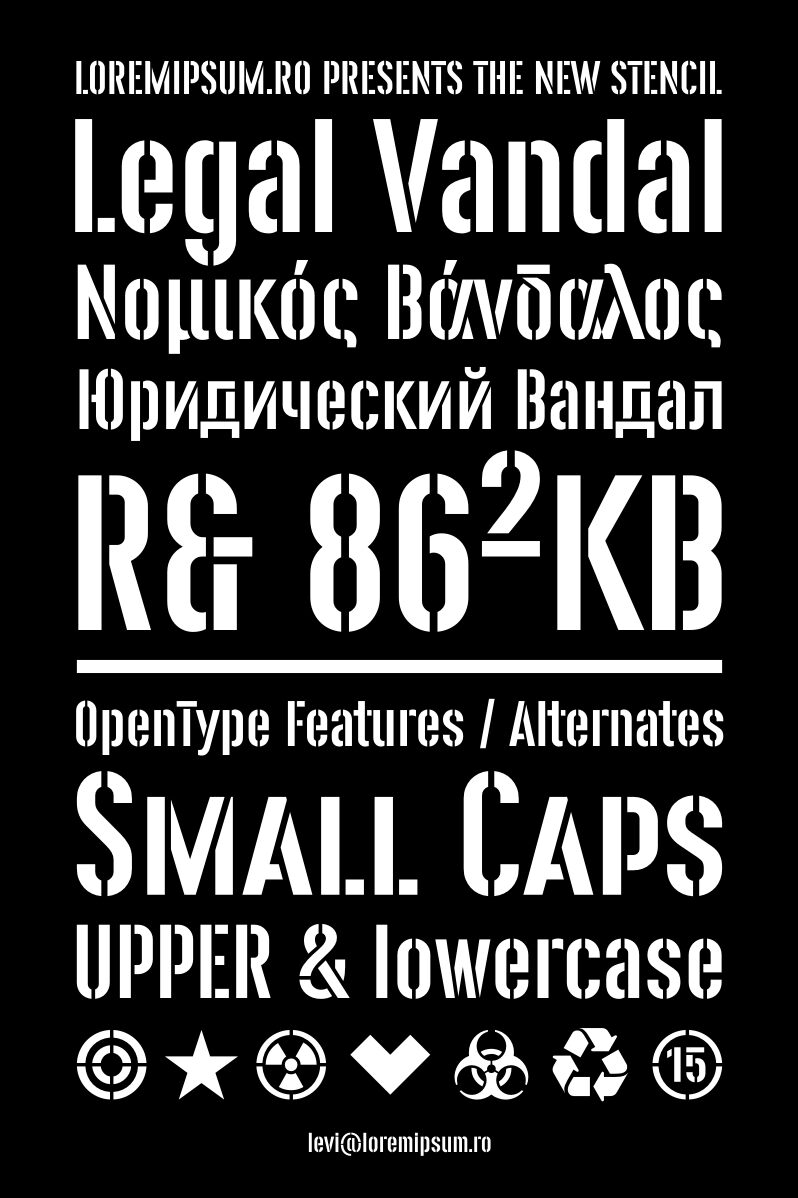
Legal Vandal Stencil
The Legal Vandal Stencil font designed by Levi Szekeres is the perfect typeface for projects that require a military-inspired, stencil aesthetic. With its extra-condensed width, this display font exudes a sense of strength and ruggedness, making it ideal for designs in the fashion, automotive and sports industries. The bold typography of Legal Vandal Stencil is sure to make your message stand out in any medium - from logos and posters to product packaging and apparel. This standout font commands attention and adds a touch of edgy sophistication to any project.
As it usually happens, this font is an extension of a personal project, for which I needed only a few characters. An obvious reference to army and cargo fonts, Legal Vandal is meant to keep a clean cut, with a right balance between simplicity and legibility, leaving the after effects to physical applications, if any.